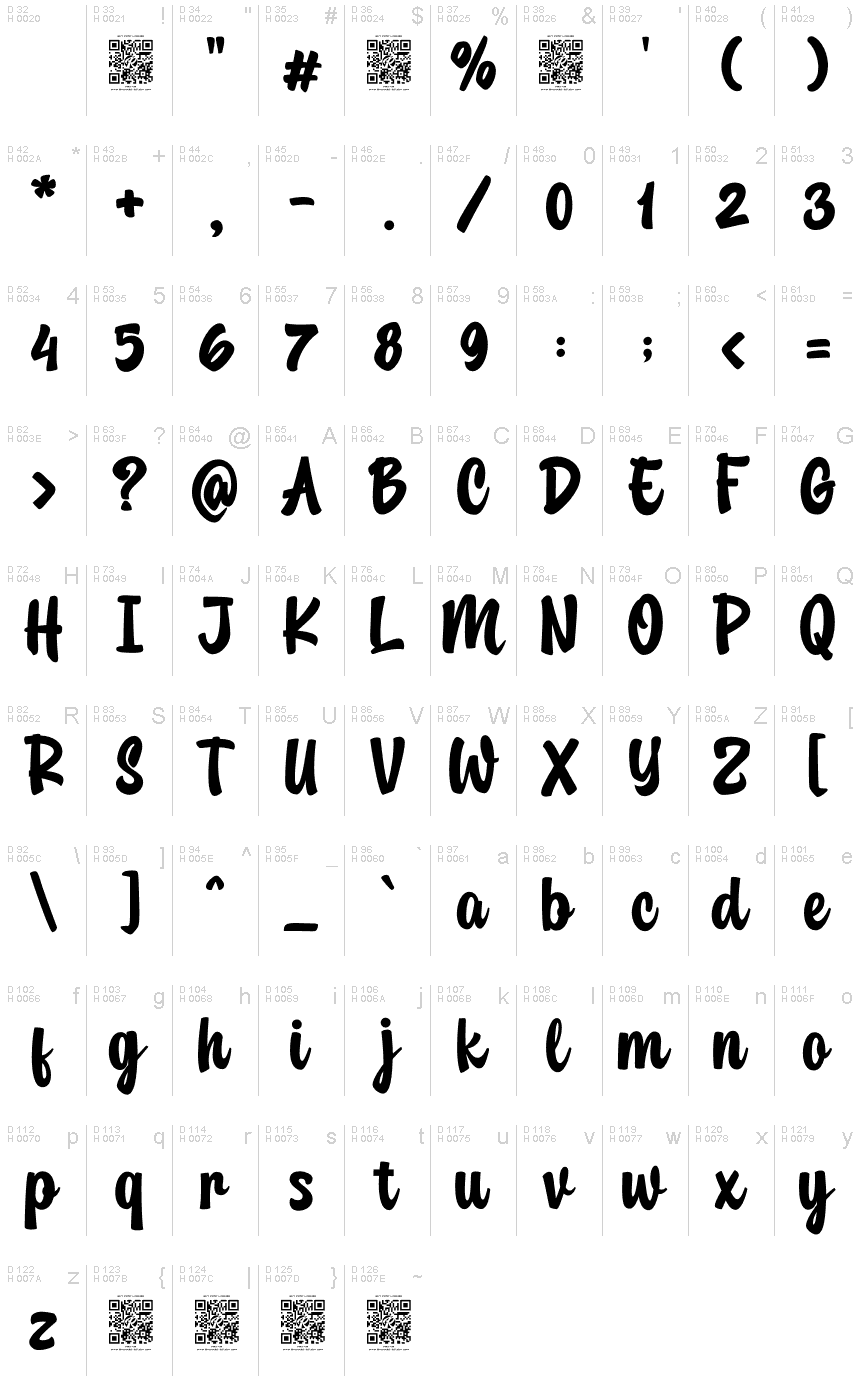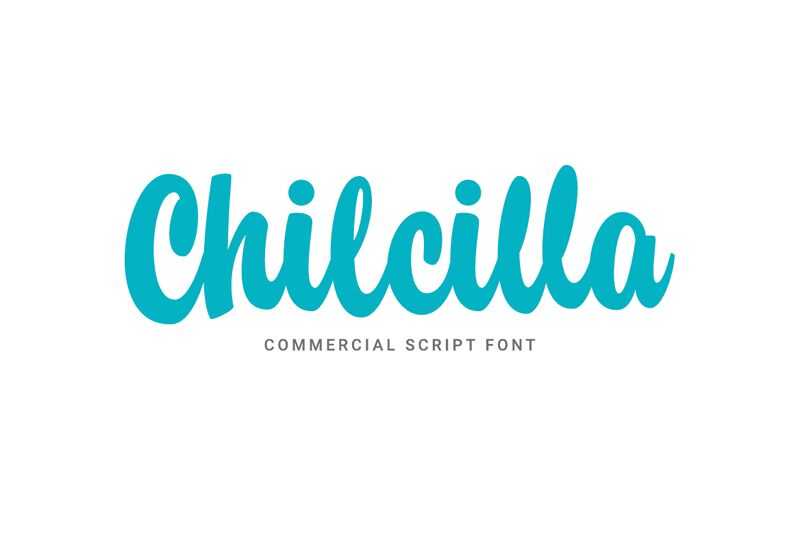
Chilcilla Regular Demo
Chilcilla, the latest creation of Rochart Studio, is a bold and semi-condensed typeface that exudes elegance and sophistication. Its smooth brush strokes create a unique and distinctive look that is perfect for a variety of projects. Use Chilcilla for headlines, posters, logos or packaging design to make a lasting impression. Its bold weight adds an extra layer of depth and creates striking visuals that demand attention. Whether you're designing for fashion, beauty or lifestyle industries, Chilcilla will elevate your project to the next level with its effortless style and refined aesthetic.